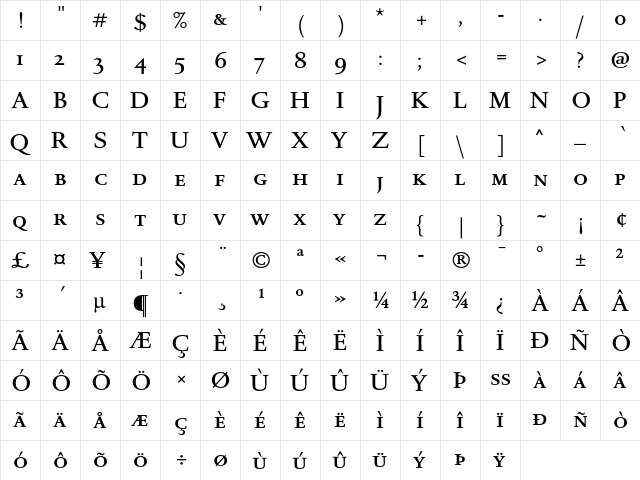
DTLRomulusTCapsMedium Regular
Design Context for DTLRomulusTCapsMedium Typeface
DTLRomulusTCapsMedium offers clean, dependable letterforms without strong stylistic allegiance, making it a practical choice for designers who need flexibility.
Pro Tip: Use DTLRomulusTCapsMedium in both headline and body roles to test its range before committing to a single application.